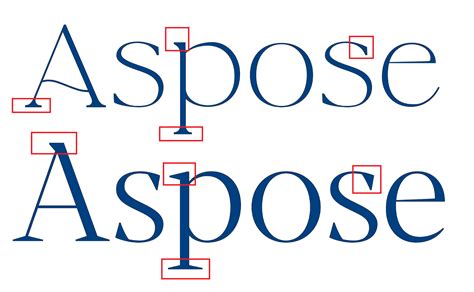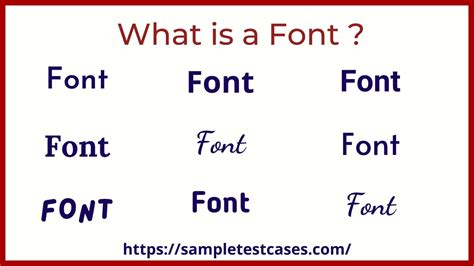
Finding the pure font for a pattern project can experience like research for a needle in a haystack, especially when you come across a beautiful design and ask yourself, " What is the font? " Identifying typography is a fundamental skill for graphical designer, trafficker, and web developer who want to maintain make consistency or replicate a specific aesthetic fashion. Whether you are analyzing a high-end manner mag, a compelling hoarding, or a minimalist website, the ability to nail a specific typeface can transform your originative workflow and salve you hours of trial and error.
Why Typography Identification Matters
Typography is the voice of your design. When you place the fiber used in a layout, you profit brainwave into the designer's intent - whether they aimed for dominance with seriph or accessibility with sans-serifs. Cognise the font family grant you to understand spacing, kerning, and weight, which are essential for professional plan effectuation.
The Psychology of Typeface Selection
Different face fire specific emotional answer from the hearing. For instance, serif fonts are often perceived as traditional and trusty, while slab serif might transmit strength and modernism. When you successfully answer "What is the font"? you are essentially decrypt the visual communication strategy behind the part.
Common Methods to Identify Fonts
There are respective effective agency to bridge the gap between curiosity and designation. From digital tools to manual analysis, here is a breakdown of how the pros do it.
- Browser Review: For web developers, the "Inspect Element" characteristic is your good friend.
- Browser Extensions: Tools that linger over schoolbook to exhibit CSS property.
- Visual Recognition Software: Uploading an icon to an AI-powered database to match glyph.
- Manual Sorting: Observing the shape of the ' g' or' a' to contract down font families.
Table: Comparison of Identification Techniques
| Method | Best For | Accuracy |
| Browser Inspector | Alive Websites | Perfect |
| Picture Recognition | Print/Static Media | Eminent |
| Forum Communities | Rare/Custom Fonts | Very Eminent |
Advanced Tips for Digital Designers
When you see a baptistry that isn't straightaway placeable, face at the frame of the letterforms. Notice the end, the crossbar height, and the presence of ligature. These micro-details are often the "fingerprints" of a specific font architect or metalworks.
Refining Your Search
If automated puppet fail, use design-centric forums. Upload a high-resolution crop of the text and furnish context - where you saw it and when. This access is often more effectual than machine-driven tools for hand-lettered or heavily modify typography.
Mastering the operation of name fount allows you to build a robust mental library of design option. By leverage browser creature, visual recognition software, and community noesis, you can confidently answer the interrogation "What is the fount?" and utilize the correct composition to your own undertaking. Remember that while tool provide the data, your eye for particular is what ultimately ensures that the chosen face match the overall mood and function of your design work. Keep practicing, stay observant, and proceed exploring the vast macrocosm of composition to enhance your originative capacity.